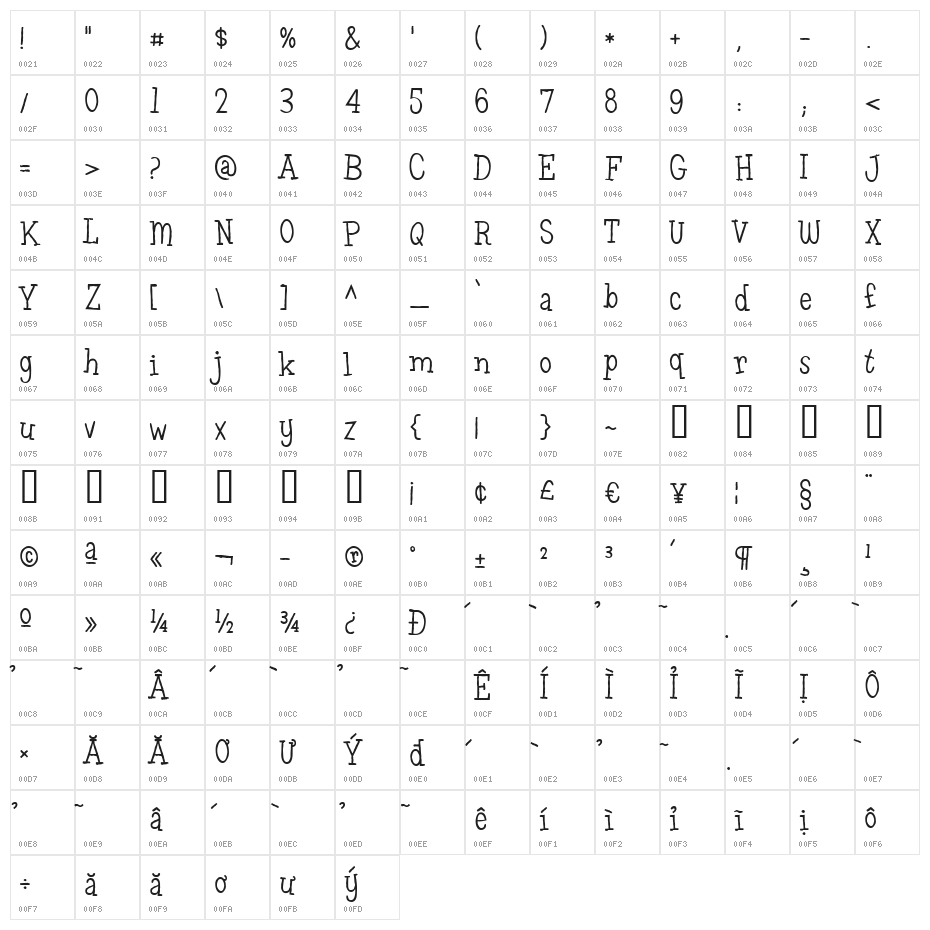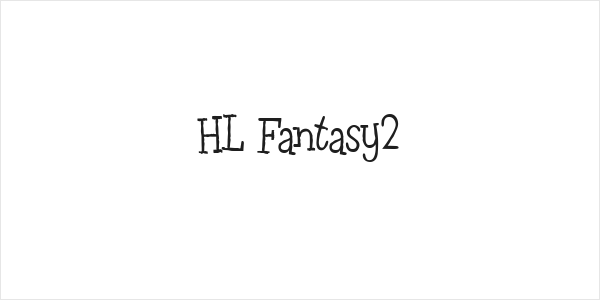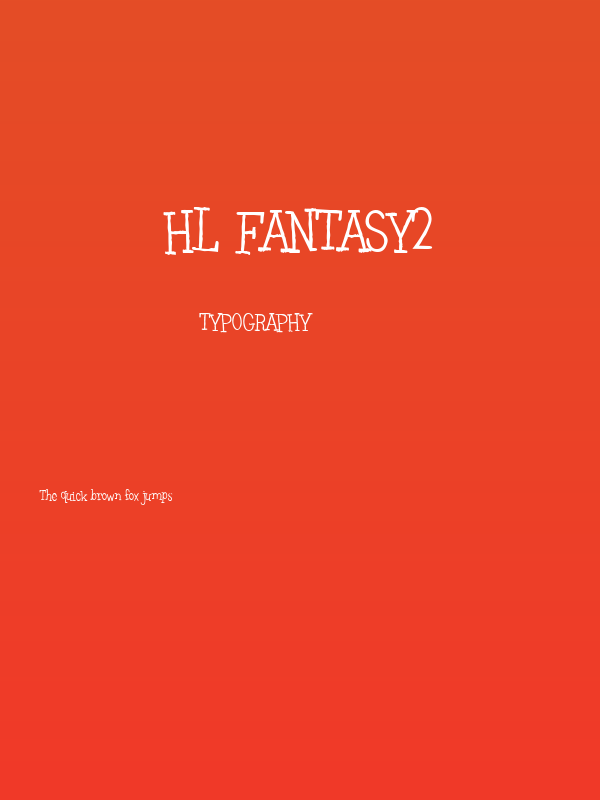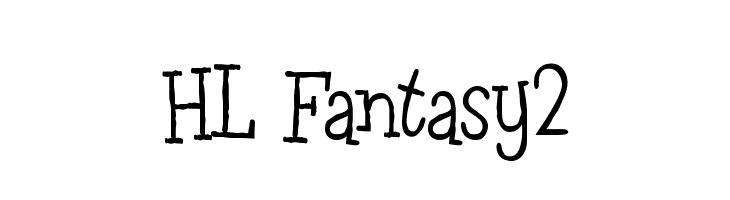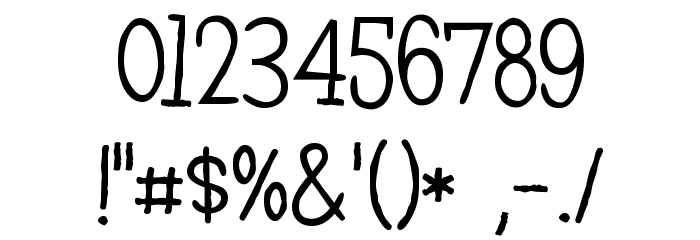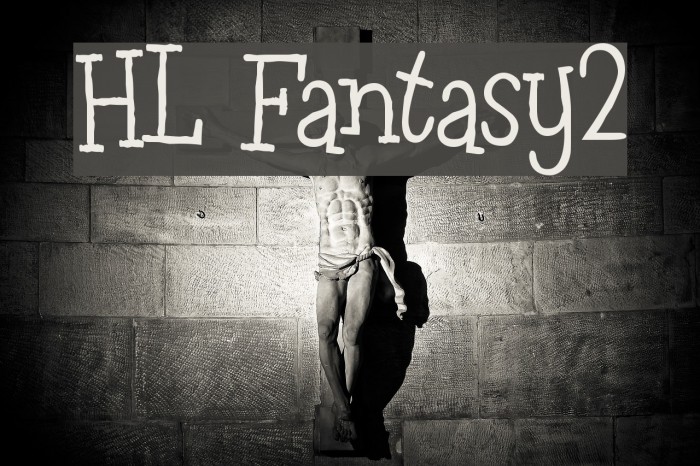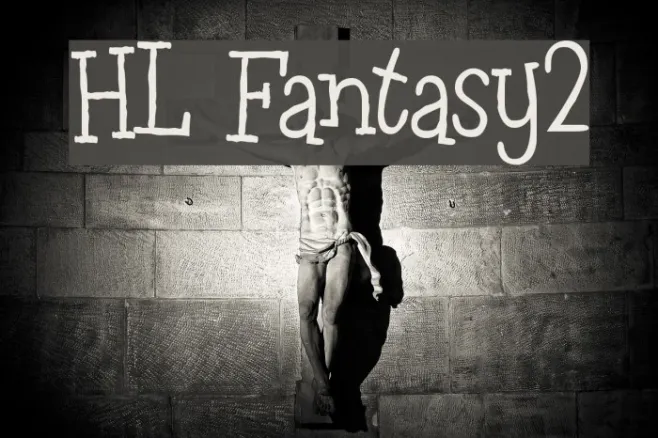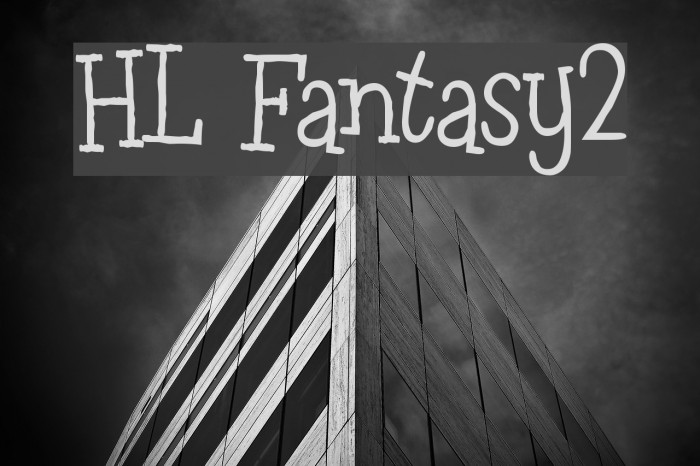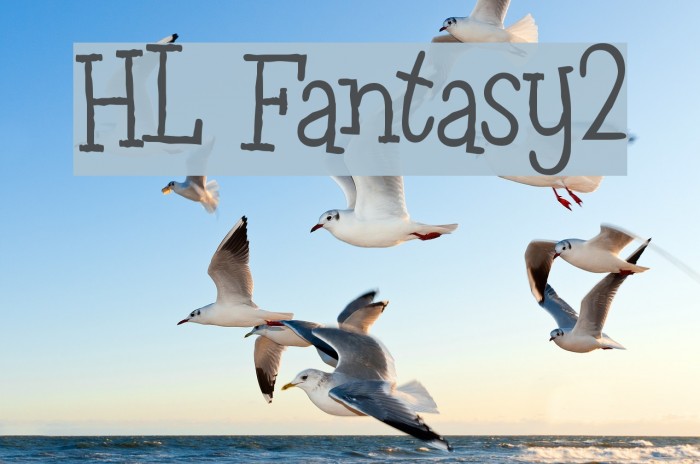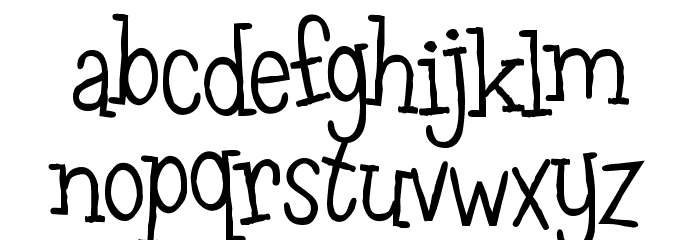
HL Fantasy2 Font
HL Fantasy2 Description
This font features a whimsical and playful design, characterized by its irregular and slightly distorted letterforms. The strokes are uneven, giving it a hand-drawn appearance that adds a touch of fantasy and creativity. The uppercase letters are bold and prominent, while the lowercase letters maintain a consistent style with quirky variations. Numbers and special characters follow the same playful theme, making this font ideal for projects that require a fun and informal touch. Its unique style makes it stand out, perfect for capturing attention in creative designs.
| Overall Style | Playful, Whimsical |
| Proposed Projects | Ideal for children's books, fantasy-themed posters, playful branding, and creative invitations. |